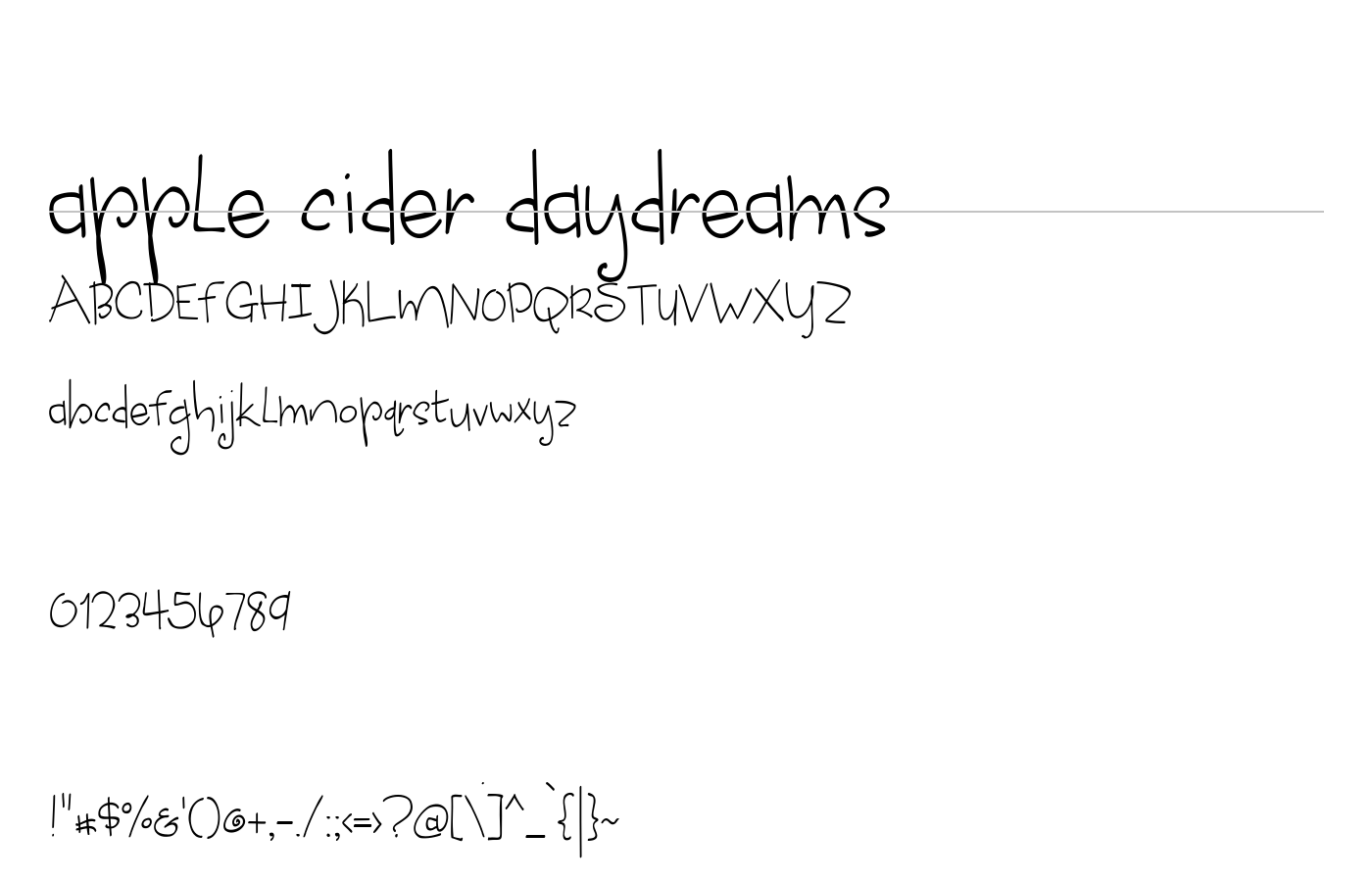
Apple Cider Daydreams is a playful, handwritten sans-serif font with a light weight and airy feel. Its tall, narrow letterforms feature irregular strokes and whimsical character shapes, giving it a quirky and casual personality ideal for creative projects that need a friendly, personal touch. This font works wonderfully for informal branding, children’s materials, invitations, and any design seeking a fun, approachable vibe.
apple cider daydreams Font
About apple cider daydreams Font
| Font family | apple cider daydreams Font |
| Designer | Brittney Murphy |